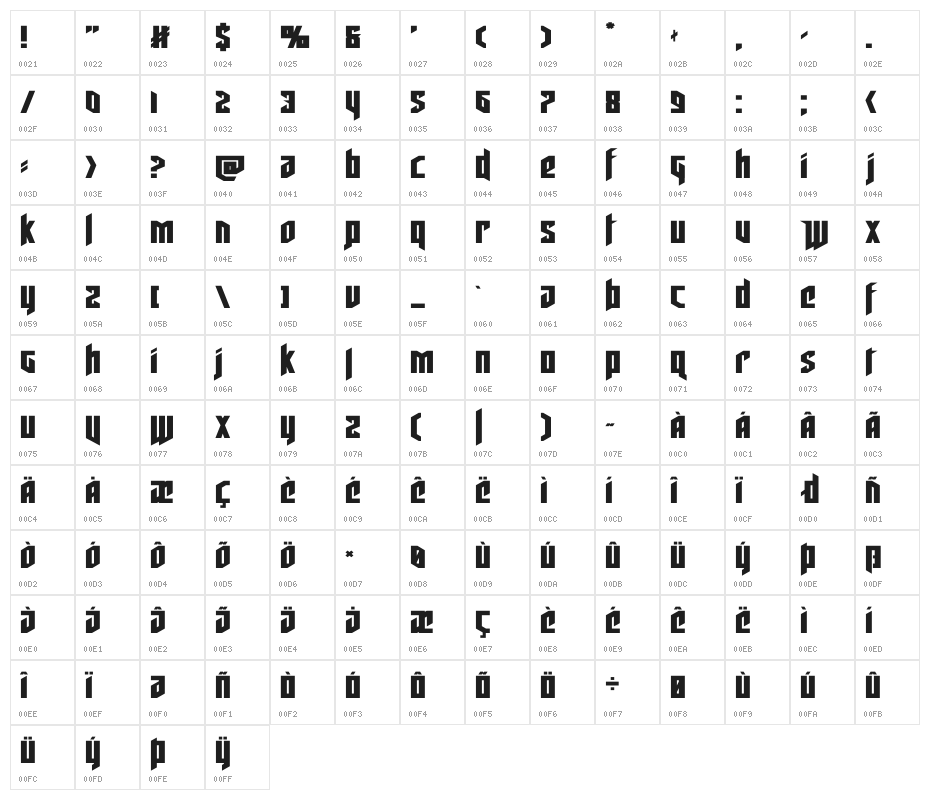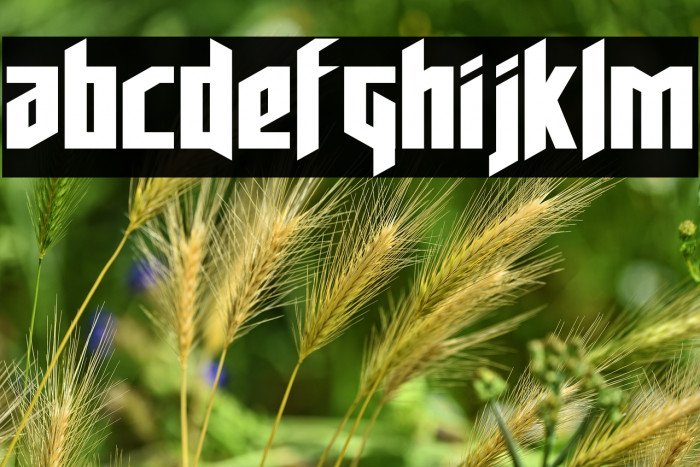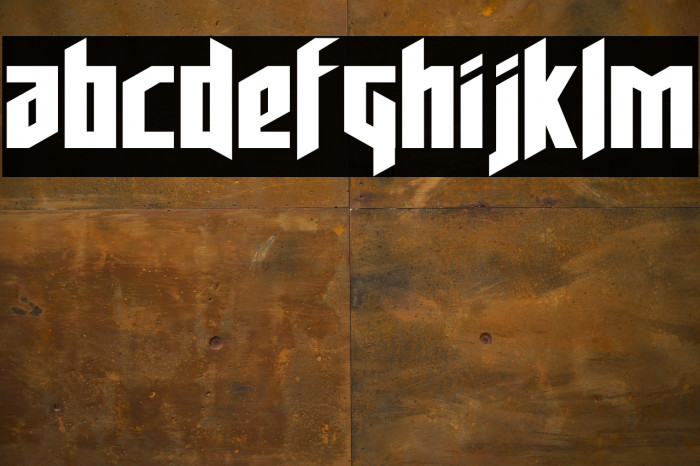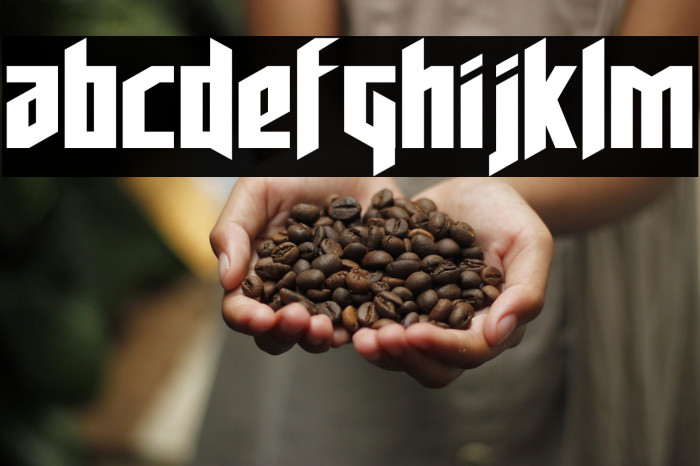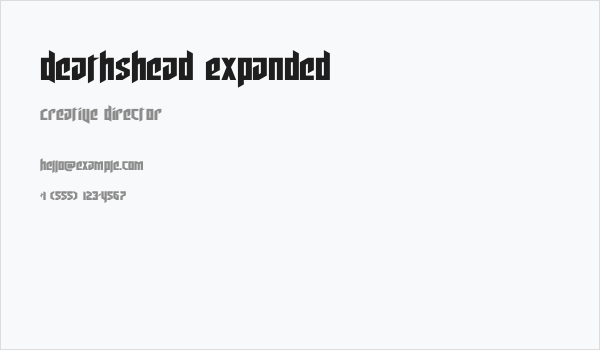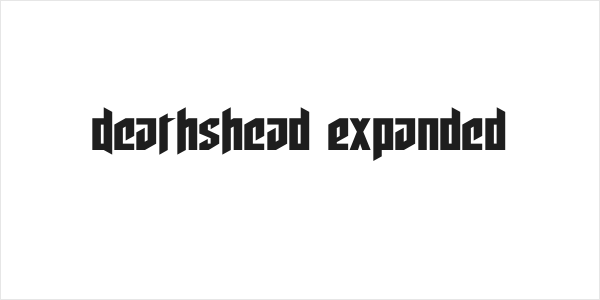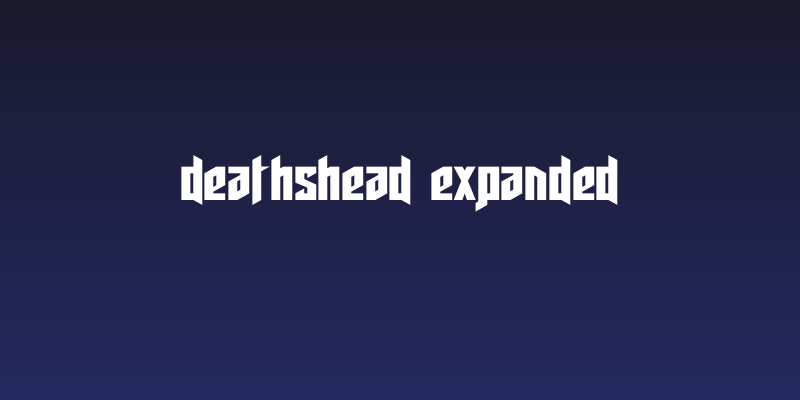
Deathshead Expanded Font
Deathshead Expanded Description
This font features a bold and aggressive design with sharp, angular edges and a distinctly geometric style. The characters are heavily stylized, with a blocky appearance that conveys strength and impact. The uppercase and lowercase letters maintain a consistent height, contributing to a uniform and cohesive look. The numerals and special characters follow the same design principles, ensuring a seamless integration across all text elements. This font's unique aesthetic makes it ideal for projects that require a strong visual presence.
| Proposed Projects | Ideal for branding, posters, video game titles, and any project needing a strong, impactful typeface. |